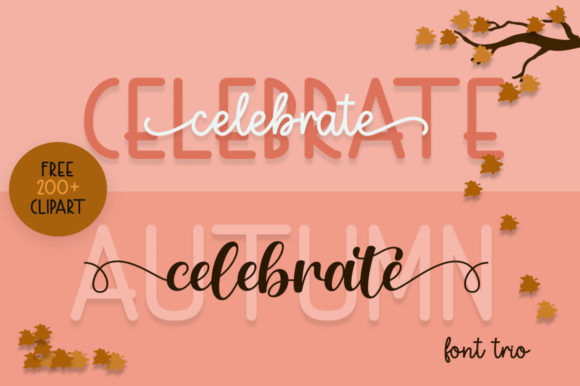
The Magic of Autumn Celebrate Font: Elevate Your Designs with this Lovely Duo
I’ll never forget the moment I stumbled upon the perfect font for a project that had been lingering in my design queue for weeks. I was working on a fall-themed invitation for a friend’s wedding, and something about the usual suspects just wasn’t cutting it. The designs felt flat, and I couldn’t shake the feeling that I was missing something special. That’s when I discovered the Autumn Celebrate font – a game-changing duo that breathed new life into my design.
So, what makes Autumn Celebrate so special? Let’s dive into the good stuff first! 😊
• ✨ Versatility: This font duo is incredibly versatile, making it perfect for a wide range of designs, from elegant wedding invites to playful seasonal crafts.
• ✅ PUA Encoding: The font comes with PUA encoding, which means you can easily access all the glyphs and swashes without any fuss.
• 🌿 Aesthetic: The script and sans serif combination is absolutely stunning, evoking the cozy, warm feelings of autumn.
Now, no font is perfect, and there are a couple of things to keep in mind:
• 🤔 Learning Curve: If you’re new to using OpenType features or glyphs, there might be a slight learning curve. But trust me, it’s worth it!
• ⚠️ Pairing: While Autumn Celebrate is gorgeous on its own, finding the perfect pairing font can take some experimentation.
The Story Behind Autumn Celebrate: A Designer’s Inspiration
While the actual story behind Autumn Celebrate’s creation remains a mystery, it’s easy to imagine a designer sitting by a cozy window, surrounded by fall leaves and warm lighting, pouring their heart into creating a font that captures the essence of the season. Perhaps they wanted to evoke memories of crisp autumn air, cozy sweaters, and the vibrant colors of changing leaves. Whatever the inspiration, it’s clear that Autumn Celebrate was crafted with love and a deep appreciation for the beauty of autumn.
Q: What is PUA encoding, and why is it important?
PUA (Private Use Area) encoding allows for easy access to a font’s special characters, glyphs, and swashes, making it simpler to use in designs.